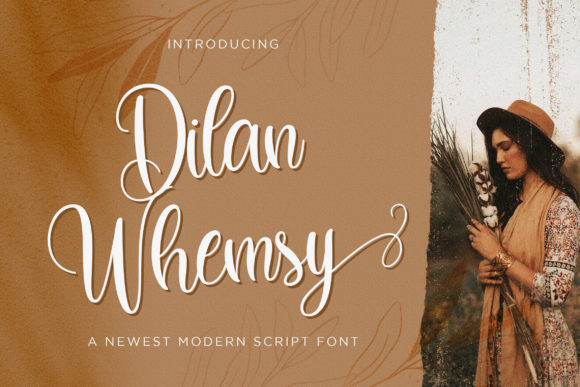
Dilan Whemsy Font Review for Handmade Product Design
I was staring at a blank candle label template late last Tuesday, trying to find a typeface that felt both luxurious and approachable for a new lavender soy collection. After testing several options that felt either too stiff or overly chaotic, I finally loaded Dilan Whemsy into my design software, and the mood of the entire project shifted instantly. As a maker who constantly balances aesthetic beauty with production reality, finding Script Handwritten styles that actually work on physical products is a rare joy. This specific font among available Fonts offers a delicate, elegant, and flowing handwritten aesthetic that transformed my simple label into something that looked professionally typeset rather than digitally forced.
Dilan Whemsy for Candle Labels and Boutique Packaging
When applying Dilan Whemsy to candle labels and boutique packaging, the delicate and elegant nature of the letterforms creates an immediate sense of premium quality. In my test run, I used this Script Handwritten style for the product name "Lavender & Sage" on a 3-inch oval label, and the well-balanced characters ensured the text remained legible even against a textured linen background. Unlike some display Fonts that sacrifice readability for flair, Dilan Whemsy maintains clear character distinction, which is critical when customers are scanning shelves or browsing shop listings on mobile devices. The flowing connections between letters add a tactile, human element to packaging design, suggesting that the product inside was crafted with care rather than mass-produced.
For fellow sellers creating unboxing experiences, this font shines on tissue paper stamps and thank-you cards included in shipments. I found that the elegant swashes work beautifully as decorative dividers between the brand logo and the personal message, adding visual interest without overwhelming the limited space on a small tag. However, it is important to note that while Dilan Whemsy is perfect for titles and short phrases, it should be paired with a clean sans serif font for ingredient lists or safety warnings. Trying to force this decorative script into dense technical text reduces legibility and detracts from the sophisticated vibe you are trying to cultivate in your brand identity.
Using Dilan Whemsy for Wedding Invitations and Stationery Suites
Dilan Whemsy serves as an exceptional choice for wedding invitations and stationery suites where emotional resonance and typographic balance are paramount. While designing a mockup for a spring wedding suite, I discovered that the flowing handwritten rhythm of this Script Handwritten typeface mimics traditional calligraphy but with the consistency required for modern digital printing. The beautiful and well-balanced characters allow for stunning hierarchy on invitation cards; the couple’s names stand out effortlessly while remaining harmonious with supporting details set in complementary serif Fonts. This versatility makes it ideal not just for the main invite, but also for welcome signs, menu cards, and place cards where maintaining a cohesive visual theme is essential.
From a production standpoint, this font performs reliably across various print finishes. I tested Dilan Whemsy on both matte cardstock and vellum overlays, and the delicate lines held their integrity without breaking up or bleeding. For crafters using foil presses or embossing machines, the stroke width is substantial enough to capture detail but refined enough to prevent muddying in tight curves. When arranging these designs, remember to utilize any included alternates or ligatures to avoid repetitive letter shapes, especially in longer names or phrases. This attention to typographic nuance elevates the perceived value of the stationery, allowing handmade creators to compete with high-end design studios while retaining a warm, personal touch.
Dilan Whemsy for Digital Printables and Wall Art
Creating digital downloads requires typography that translates perfectly from screen to home printer, and Dilan Whemsy excels in this realm of printable wall art and planner assets. As I designed a series of inspirational quote prints, the elegant and flowing structure of this Script Handwritten font provided the artistic weight needed to make a standalone text piece feel complete. Many decorative Fonts struggle at large scales, revealing jagged edges or awkward spacing, but Dilan Whemsy retains its smooth vector quality even when scaled up for an 18x24 poster. This reliability is crucial for sellers offering instant download art, as customers expect crisp, professional results regardless of their chosen print size or paper type.
Beyond wall art, this typeface adds significant charm to digital planner covers, sticker sheets, and social media templates. The well-balanced characters ensure that text remains readable in thumbnail previews on Etsy or Pinterest, which directly impacts click-through rates and sales. For Cricut and Silhouette users planning to turn digital designs into physical vinyl decals or iron-on transfers, the connected flow of Dilan Whemsy cuts cleanly without requiring excessive weeding or bridging. Just be cautious with extremely intricate swashes at very small sizes; while the font is versatile, tiny vinyl cuts may require simplification to ensure adhesion. Always check the commercial licensing terms before selling templates or physical merchandise featuring this font to ensure your creative business remains compliant and protected.
Pairing Dilan Whemsy with Supporting Typefaces for Brand Consistency
Achieving professional brand consistency often depends on how effectively you pair Dilan Whemsy with supporting typefaces to create a cohesive visual system. Because this Script Handwritten font carries so much personality and elegance, it demands a partner that provides stability and contrast rather than competition. In my own shop branding, I have found that pairing Dilan Whemsy with a minimalist geometric sans serif creates a modern, editorial look that feels fresh and accessible. Conversely, combining it with a classic serif font evokes a more traditional, heritage-inspired aesthetic suitable for vintage-style goods or luxury skincare lines. These strategic combinations among available Fonts allow the script to serve as the emotional hook while the secondary typeface handles functional communication.
Ultimately, integrating Dilan Whemsy into your creative workflow is about understanding its strengths as a delicate, elegant, and flowing handwritten tool. It is not merely another option in your font library; it is a design asset that communicates warmth, craftsmanship, and intentionality. Whether you are labeling artisanal jams, designing wedding suites, or building a digital product empire, this typeface brings a level of polish that resonates with customers seeking authentic, handmade quality. By respecting its decorative nature and pairing it thoughtfully, you can transform ordinary projects into extraordinary brand experiences that stand out in a crowded marketplace.